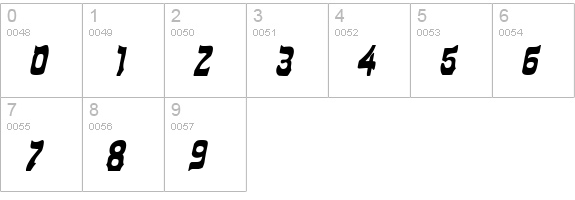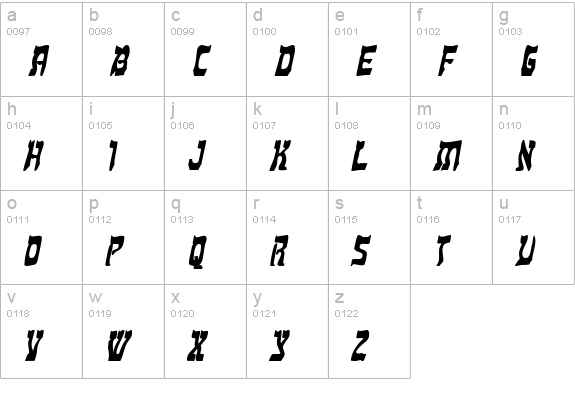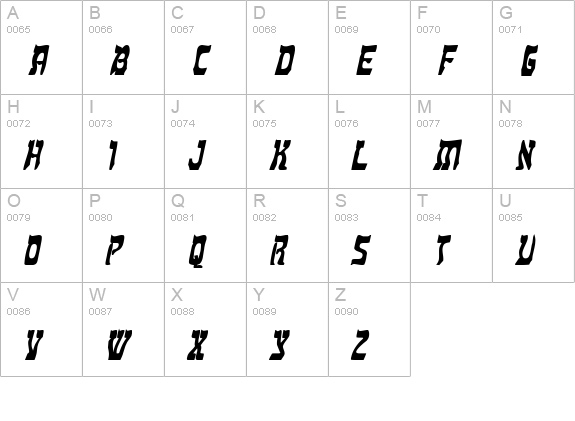
Kosher Condensed BoldItalic is a distinctive, condensed-width variant in the Kosher typeface family \xE2\x80\x94 well suited to design and typography projects.
Kosher Condensed BoldItalic font is a stylish and modern typeface that exudes sophistication and elegance. Its bold and italic design adds a touch of flair to any project, making it perfect for eye-catching headers, titles, and logos. This font is ideal for creating a striking visual impact while maintaining readability. What sets Kosher Condensed BoldItalic font apart is its versatility and adaptability to various design contexts, from print materials to digital content. Whether you're working on a branding project, advertising campaign, or website design, this font is sure to elevate your work to the next level. Best of all, Kosher Condensed BoldItalic font is available for free download at FontsMarket.com. You can easily access this high-quality typeface without any cost, making it a valuable addition to your font library. Don't miss out on this opportunity to enhance your designs with the unique and captivating Kosher Condensed BoldItalic font.